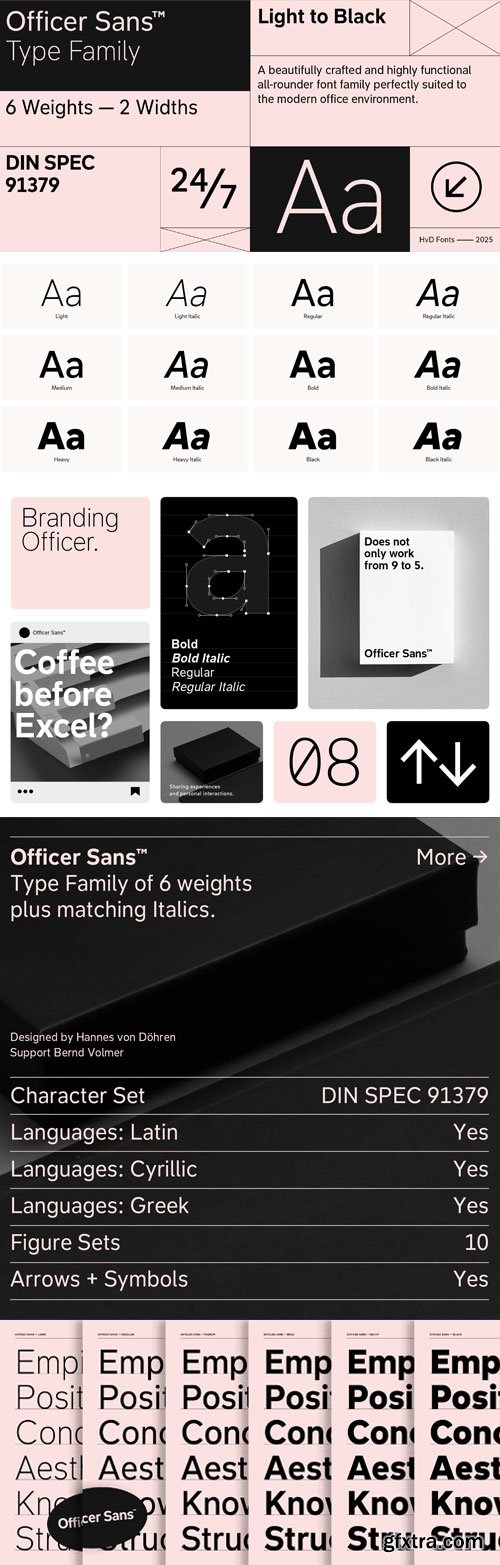
- Type design is about more than crafting beautiful letters. In your day-to-day business, you don’t need flashy and fashionable — you need fonts that will always get the job done, a typographic workhorse. Officer Sans is a beautifully crafted and highly functional all-rounder font family perfectly suited to the modern office environment and designed to the most exacting typographic standards. It looks great too!
- We designed Officer Sans to exacting standards so that the fonts work perfectly and seamlessly with modern office apps like MS Office, Excel, Pages, and Numbers. That means ensuring seamless functionality with features like Style Linking in MS Office, embedding the fonts within your documents, and optimizing or hinting all the fonts for optimal rendering on screen.